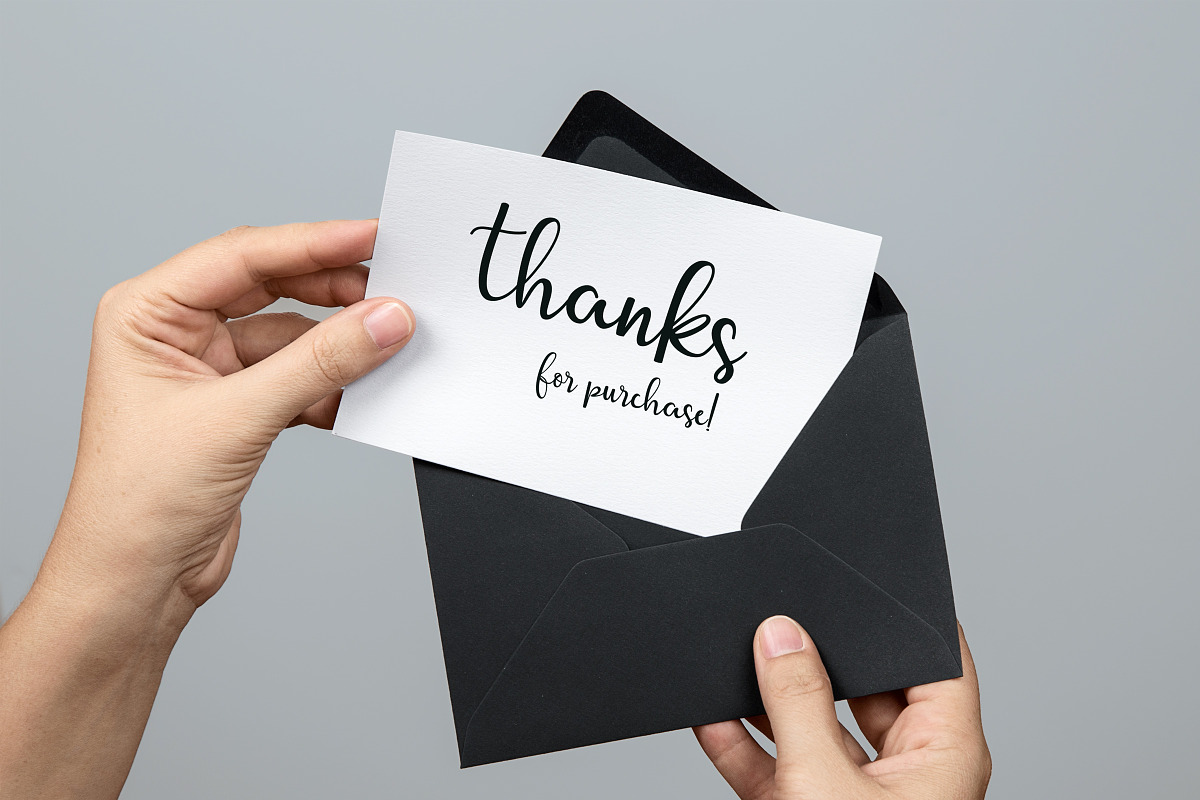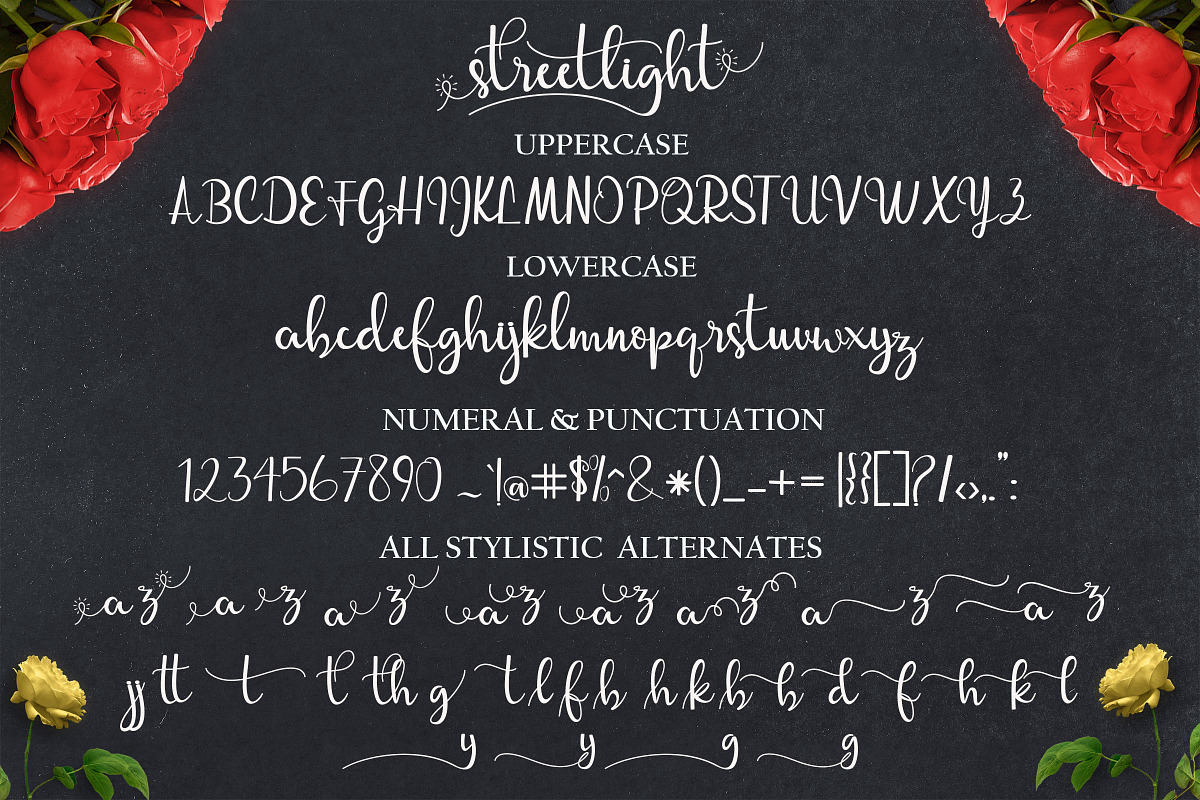
streetlight script
Introducing
Streetlight Script a new fresh & modern script with a handmade calligraphy style, decorative characters and a dancing baseline! So beautiful on invitation like greeting cards, branding materials, business cards, quotes, posters, and more!!
Streetlight Script come with 459 glyphs. The alternative characters were divided into several Open Type features such as Swash, Stylistic Sets, Stylistic Alternates, Contextual Alternates. The Open Type features can be accessed by using Open Type savvy programs such as Adobe Illustrator, Adobe InDesign, Adobe Photoshop Corel Draw X version, And Microsoft Word. And this Font has given PUA unicode (specially coded fonts). so that all the alternate characters can easily be accessed in full by a craftsman or designer.
Streetlight Script :Uppercase & Lowercase International Languange & Symbols Support Punctuation & Number PUA Unicode Range Standard Stylistic Alternates Stylistic Set 1-13 Character Variant Contextual.